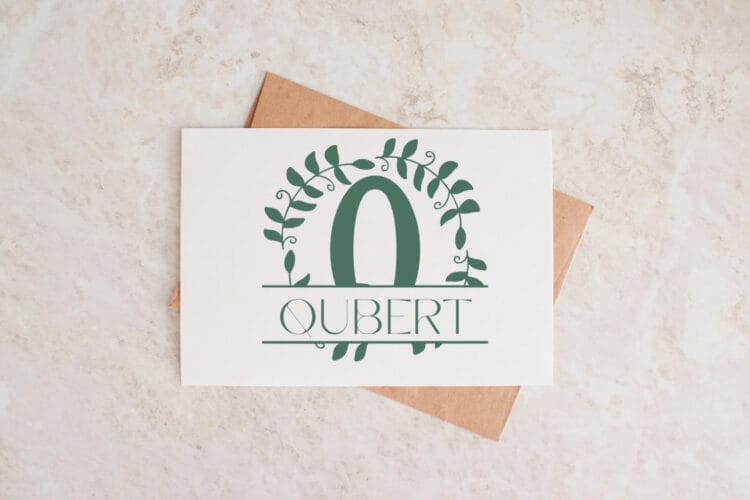
Meet Veloriax Split Monogram Font
Veloriax Split Monogram Font turns any initial into a sleek, name-ready emblem in seconds. Calm, modern letterforms project quiet luxury, while a precise horizontal split creates natural space for names, dates, or short words. Because spacing stays even and counters remain open, your designs look polished on tiny tags, door hangers, tumblers, ornaments, menus, and statement wall art. Pair it with a clean sans or a light script and every layout stays readable and refined.
Where this split monogram font shines
Set one hero initial, then place the family name inside the split for instant personalization. Try couple names for engagement gifts, venue names for signage, or short words like Home, Welcome, and Love for seasonal décor. Since the proportions favor clarity, files scale smoothly for Cricut, Silhouette, Glowforge, and laser projects. As a result, batch customization becomes fast and consistent across product lines and shop listings.
Design tips for Veloriax Split Monogram
Keep the hero initial large and let white space breathe. Place the split at center or slightly low for a steady baseline. Choose a simple secondary font inside the split to protect legibility on small items. Because the style is modern and refined, metallic foils, linen textures, pearlescent stocks, and natural woods add instant value. Keep names concise so the composition remains balanced and clear at thumbnail size.
Uppercase alphabet optimized for split monograms
Matching lowercase, numbers, punctuation
Curves tuned for engraving, foil, laser cutting, and clean vinyl paths
Why makers choose this split monogram font
You want fast personalization that still feels bespoke. Veloriax Split Monogram Font delivers consistent, high-end name designs in minutes while keeping your shop’s visual language cohesive from gifts to signage.